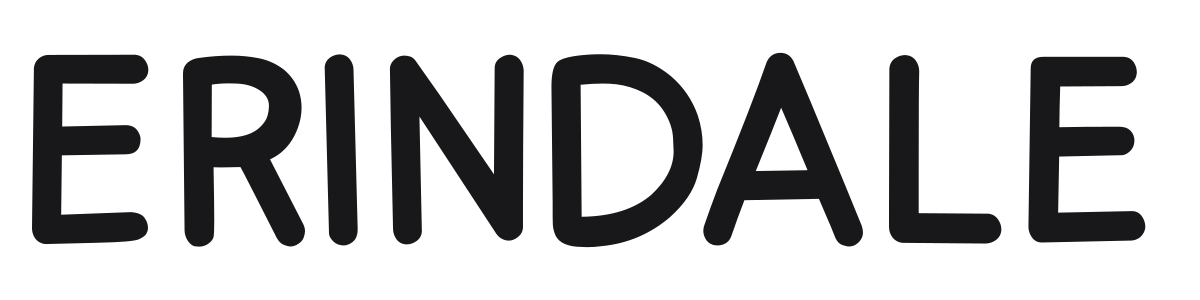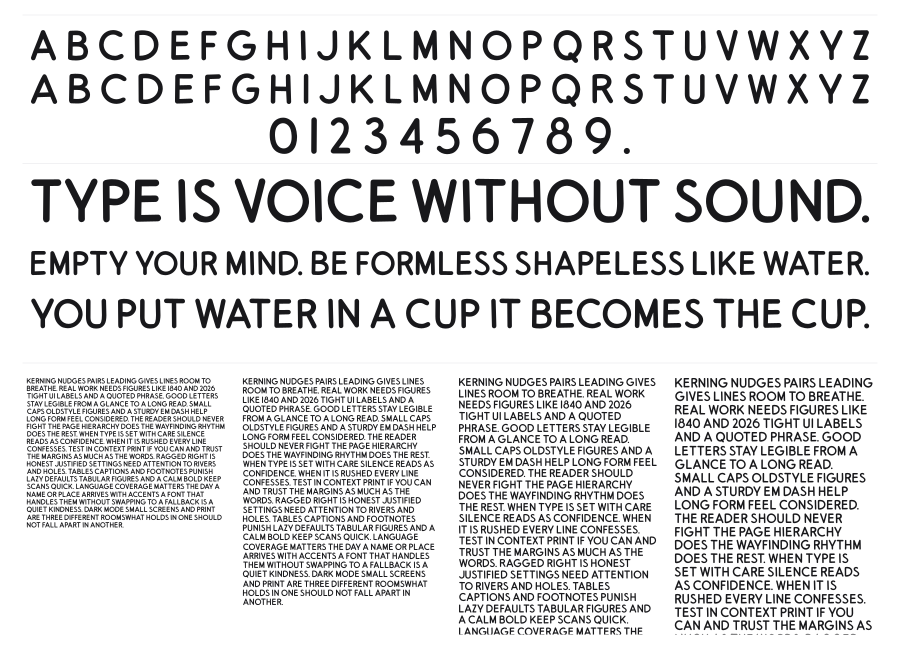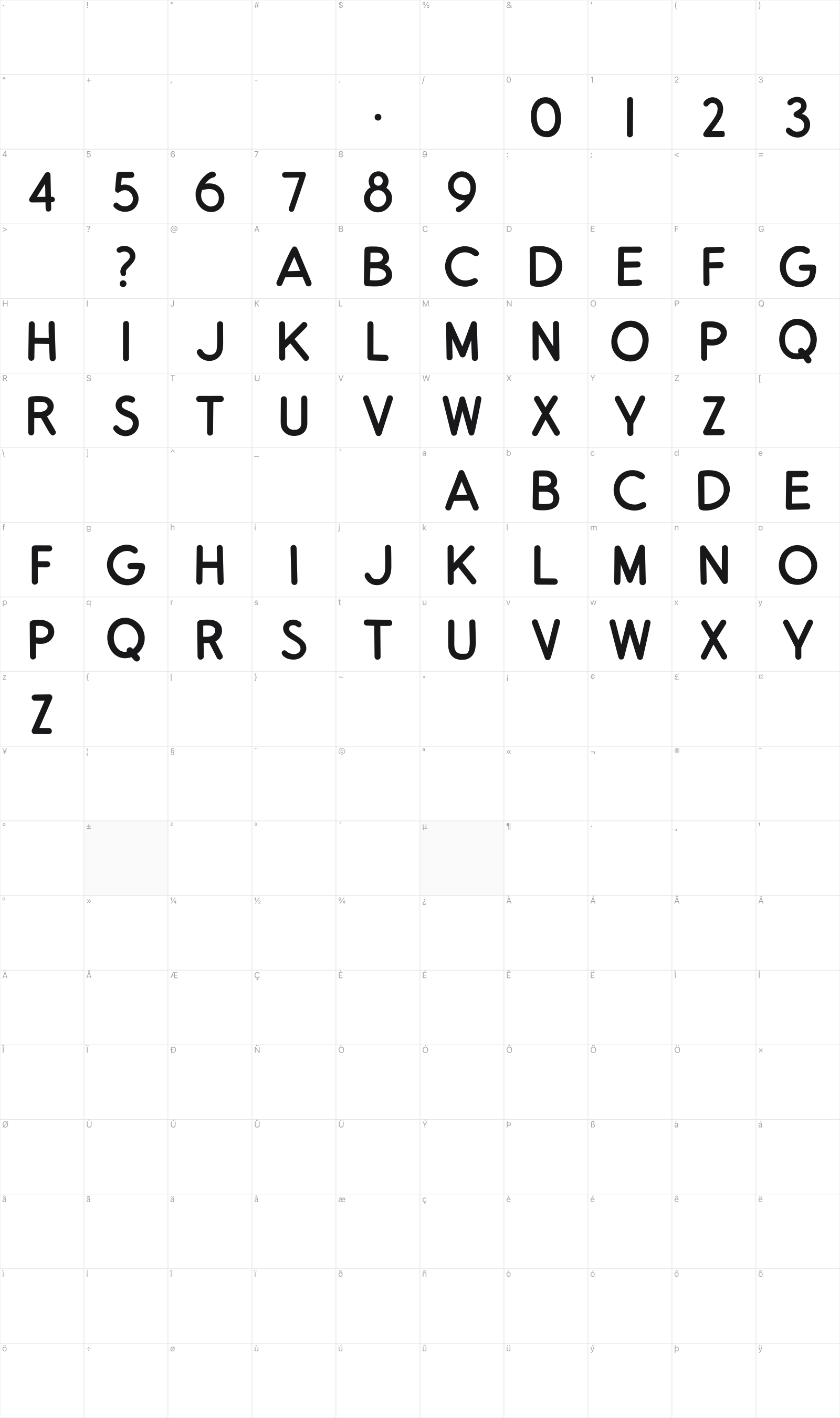
Erindale
Erindale is an all-caps display sans inspired by the hand-lettered subheadings found in 1920s and 30s print advertising. Subtle irregularities in spacing and alignment give the characters a warm, drawn quality that keeps them from feeling mechanical. It works at subheading scale without overpowering surrounding type, and scales naturally to signage, posters, and comics.